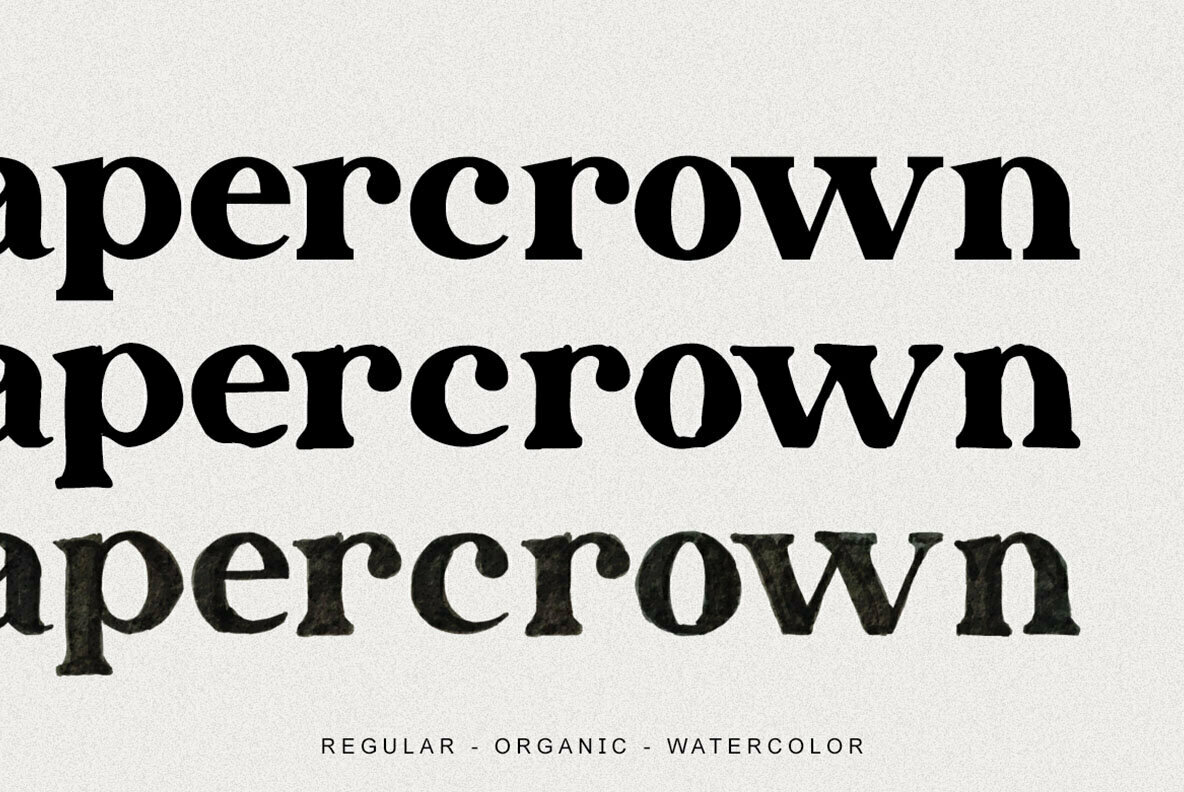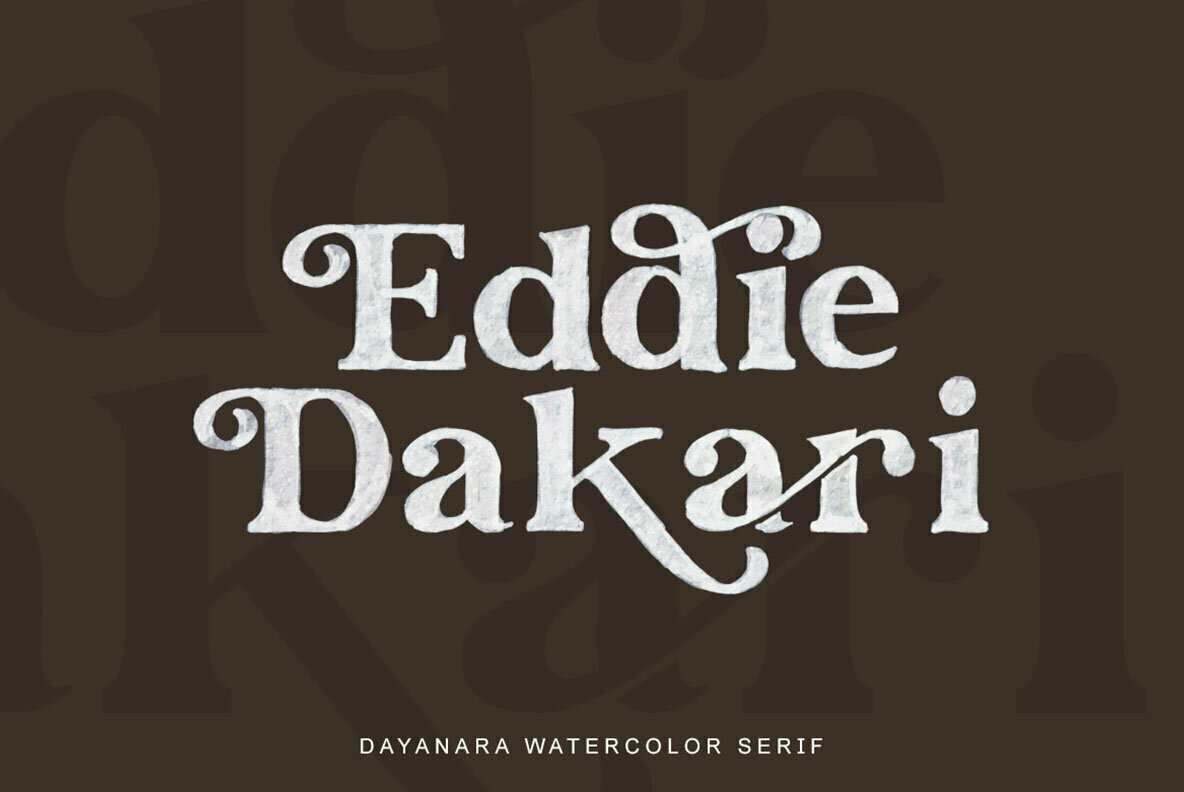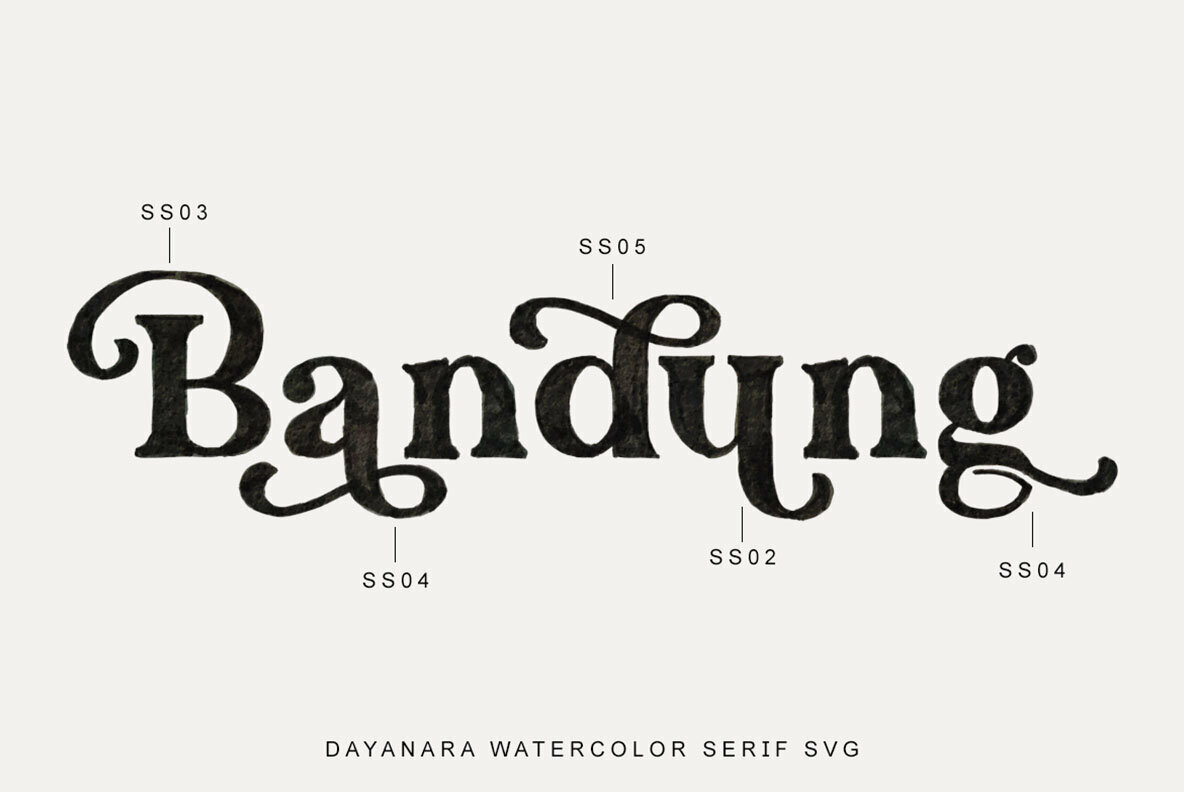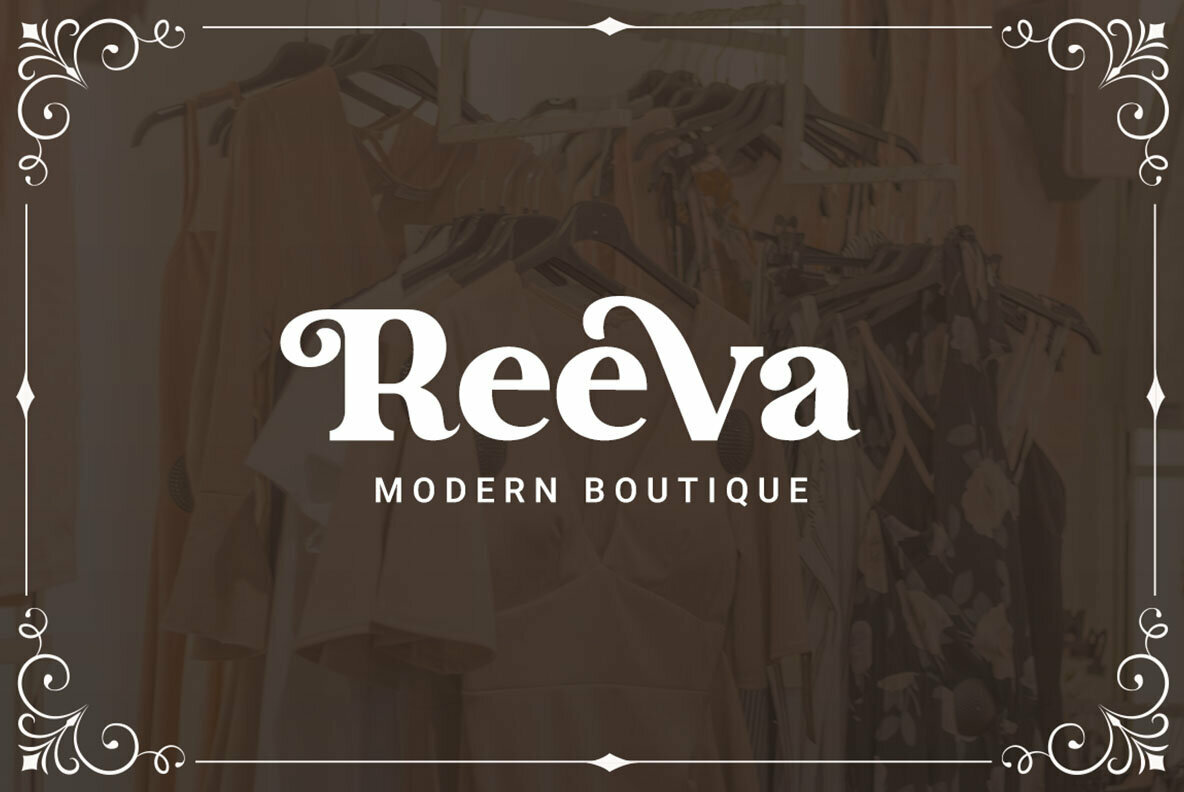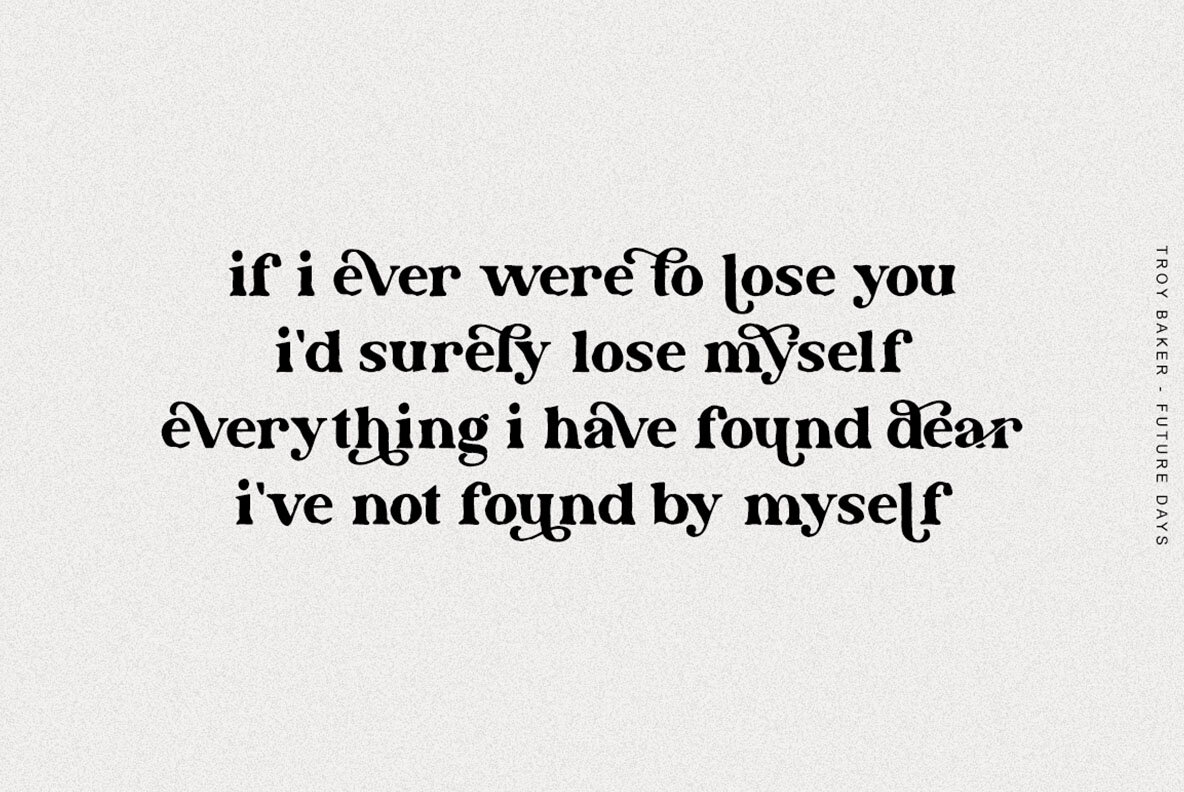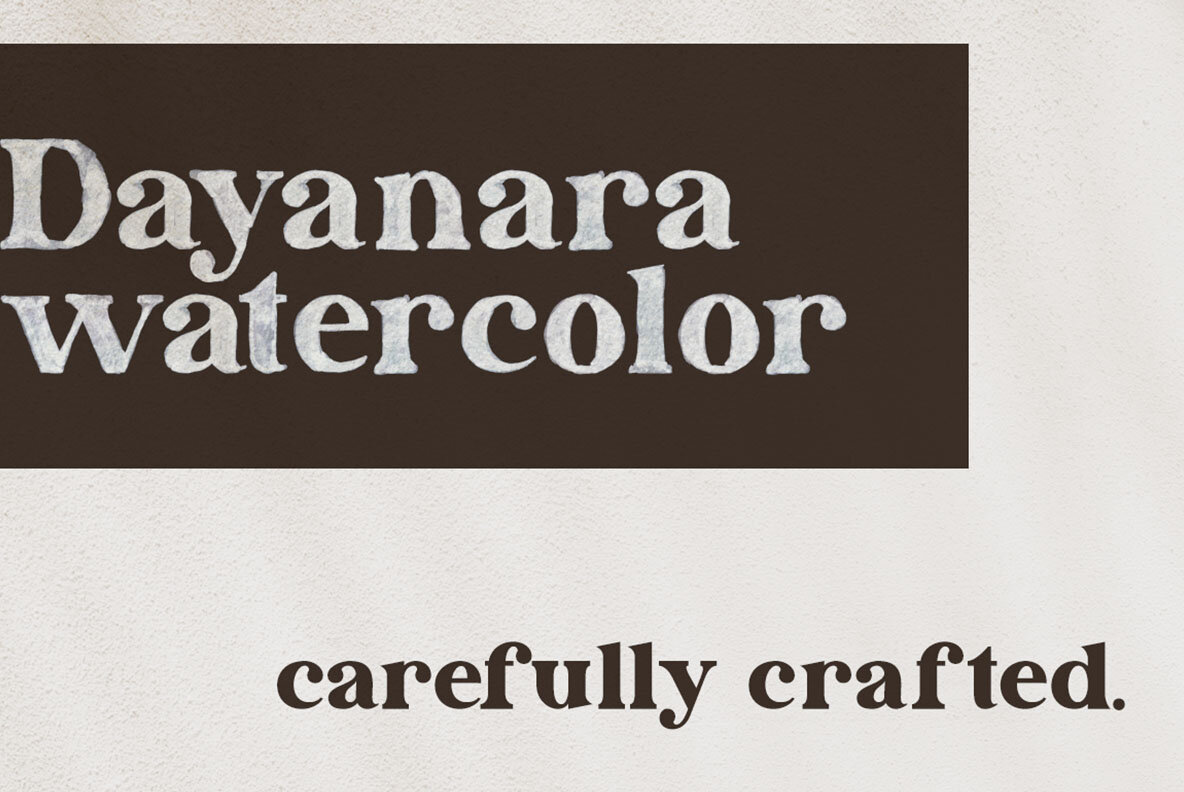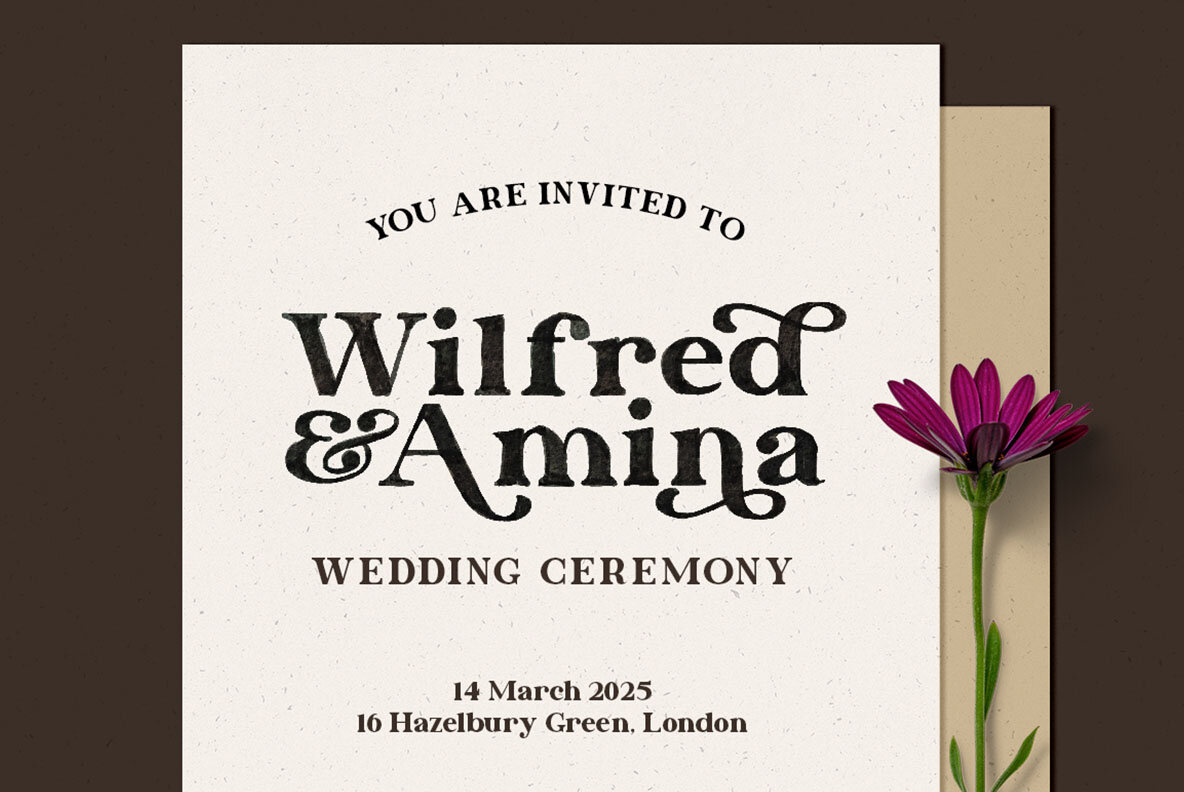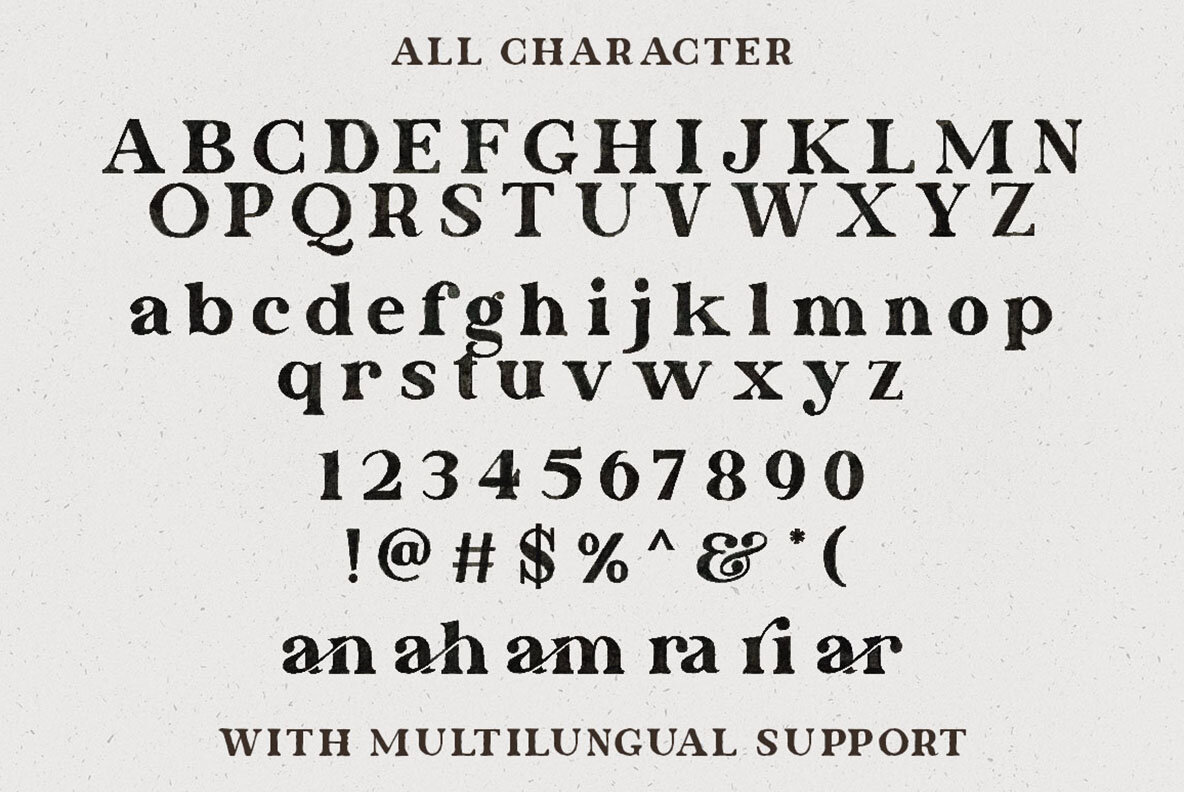
Dayanara is a special font because it has its own charm by having a watercolor texture on it. Dayanara consist of 3 fonts, Dayanara Regular, Dayanara Organic, and Dayanara Watercolor SVG. You can mix and match them to create anything that can make your work look more lovely! This font family have stylistic alternates, ligatures, and with Multilingual Support. so what are you waiting for?